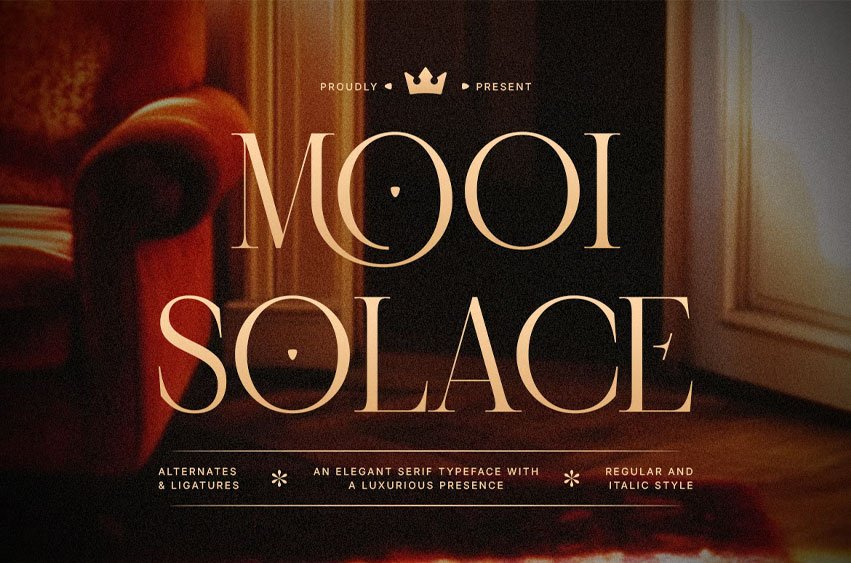
Mooi Solace Font is an elegant luxury serif font created to bring softness, sophistication, and timeless presence into every design. With graceful letterforms, refined contrast, and stylish details, this typeface feels right at home in premium branding, editorial layouts, beauty campaigns, jewelry packaging, and high-end visual identities.
Designed for creators who want a polished and memorable look, Mooi Solace combines classic serif beauty with a modern quiet-luxury aesthetic. It is perfect for headlines, logos, invitations, product packaging, and social media visuals that need a feminine, elevated, and premium impression. Bring timeless beauty to every word with Mooi Solace.
- Elegant luxury serif style
- Alternates and ligatures
- Regular and Italic styles
- Professional kerning
- Ideal for branding, editorial, and premium design projects